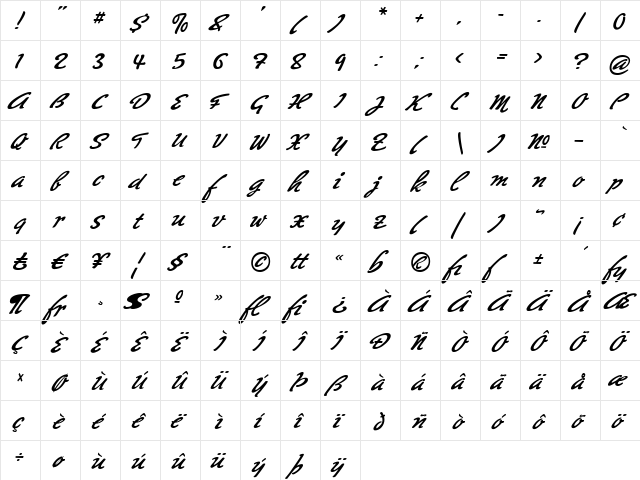
Big Brush One Font Preview
Big Brush One
Big Brush One Font Details
| Style | One |
| Foundry | Rebecca Alaccari. & Canada Type |
Design Context for Big Brush Typeface
Big Brush flows with the natural rhythm of handwritten lettering, making it ideal for designs that call for warmth and personal expression.
Font Pairing: Combine Big Brush with a simple geometric sans for maximum contrast — the tension between flowing curves and clean structure is a classic typographic pairing.
Pro Tip: Pair Big Brush with a clean sans-serif for supporting text. The contrast between fluid script and geometric structure creates an elegant typographic hierarchy.